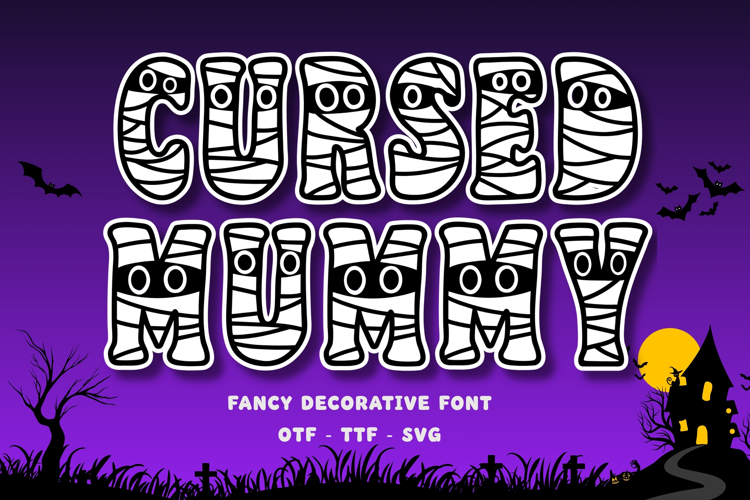
Cursed Mummy Font is a spooky and playful Halloween display font inspired by adorable wrapped mummies. Every letter features cute mummy details, making this font perfect for Halloween crafts, party decorations, sublimation projects, Cricut creations, and festive apparel.